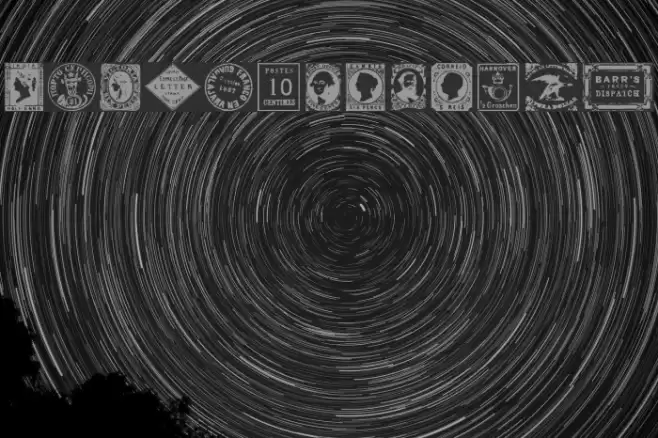
PostageStamps Font
PostageStamps Description
A decorative display font inspired by vintage postage stamps, featuring ornate borders, distressed textures, and intricate detailing reminiscent of classic philatelic designs. The characters are enclosed in rectangular frames, evoking the look of old stamps.
Vintage, ornate display font styled after classic postage stamps from Dingbats fonts.
- Overall Style: Vintage, Decorative
- Use Case: Headlines, Logos, Posters, Decorative text